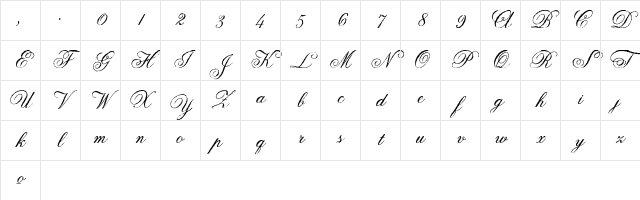
Anglia Olde Standard Regular
Design Context for Anglia Olde Standard
Anglia Olde Standard is a composed and adaptable typeface that performs quietly and consistently across a wide range of design contexts.